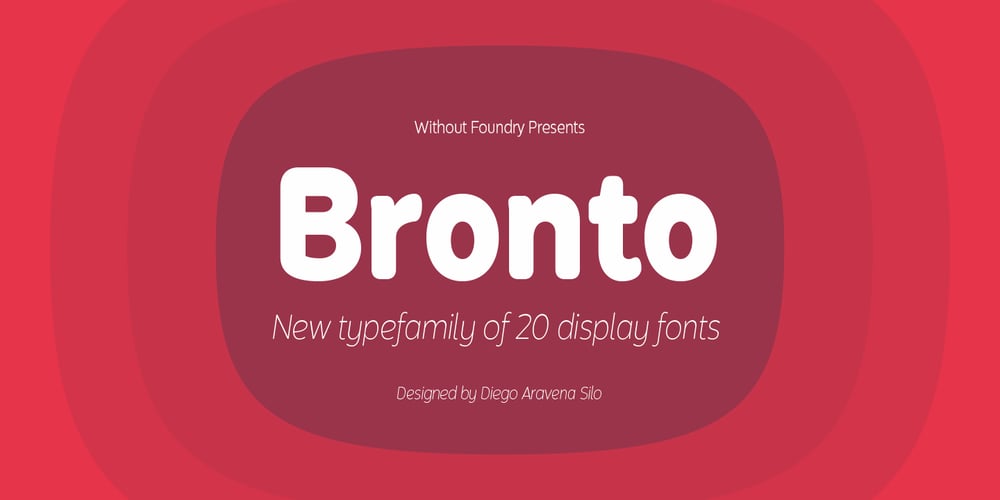
Bronto Font Family was designed by Diego Aravena Silo and published by W Type Foundry. Bronto contains 20 styles and family package options. Bronto is a typeface that mutated many times: it went from being morphologically conventional, to have soft features, to finally have some inverted contrasts that made it more dynamical; but all this without losing sight of the meaning of a typefamily, and the aim pursued by this work: Bronto doesn’t behave as a piece of art, but as a tool. In some weights, this typeface possesses fluffy characteristics and is boldly bighead, while in other versions is slightly contrasted and controlled; this in order to maintain the essential features of the typefamily along the versatility and usability of the 20 variations that composed it. Bronto it’s inspired in neo humanists typographies of the 20th century, and in Chilean lettering. This kind of work was made by the spontaneity of the paintbrush, which gave an inverted contrast to some characters. This typeface has plenty of OpenType features, specially an extensive set of ligatures in all weights. Bronto is well suited for motion graphics, letterings, web, advertisings, magazines and books.